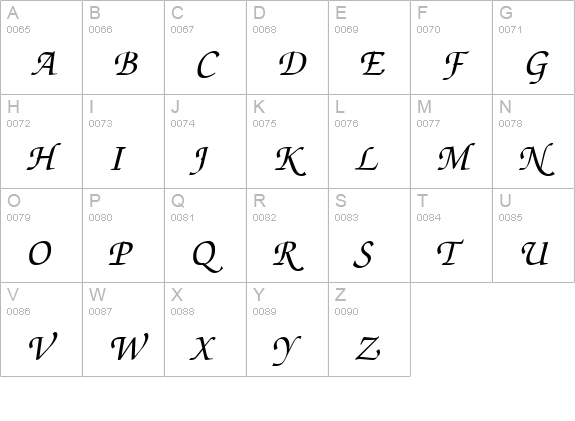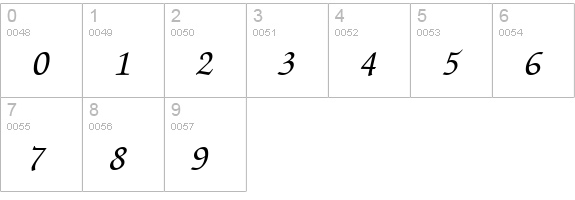
ZappedChancellor MedItalicSH Font Details
ZappedChancellor MedItalicSH font is a stunning typeface that strikes the perfect balance between elegance and modernity. Its sleek, italic design exudes sophistication and charm, making it ideal for a wide range of design projects. The sharp, angular letterforms create a sense of energy and dynamism, adding a unique flair to any text. What sets ZappedChancellor MedItalicSH font apart is not only its stylish appearance but also the fact that it is completely free to download. That's right – this exceptional font is freely available at FontsMarket.com, allowing you to elevate your designs without breaking the bank. Whether you're working on a branding project, a website design, or any other creative endeavor, ZappedChancellor MedItalicSH font is sure to make a memorable impression. Download it today and unleash your creativity!